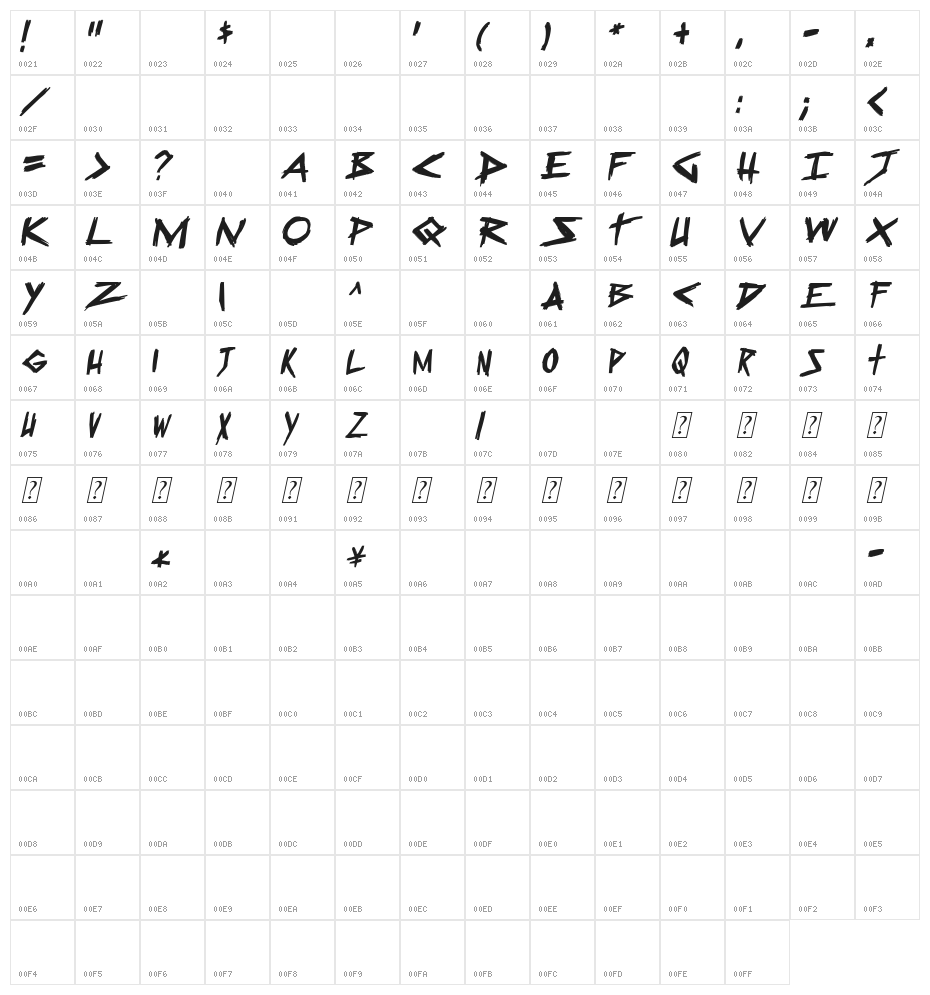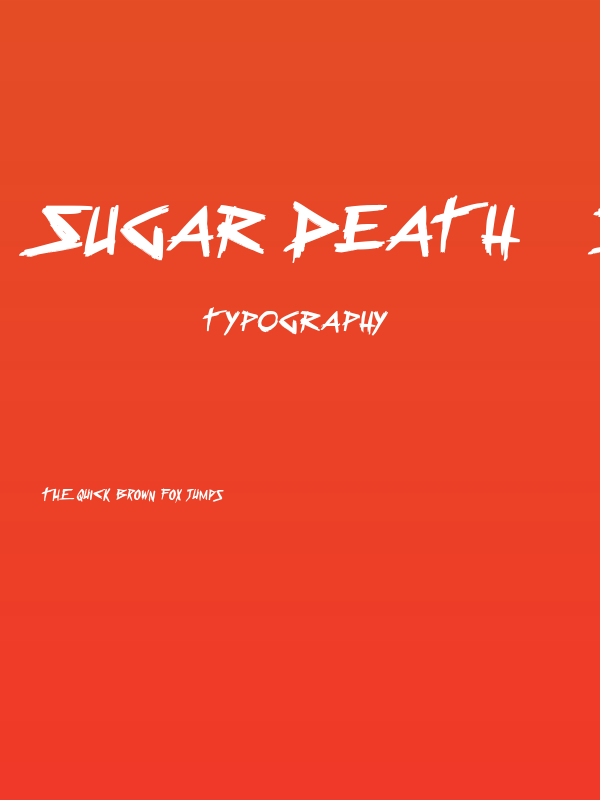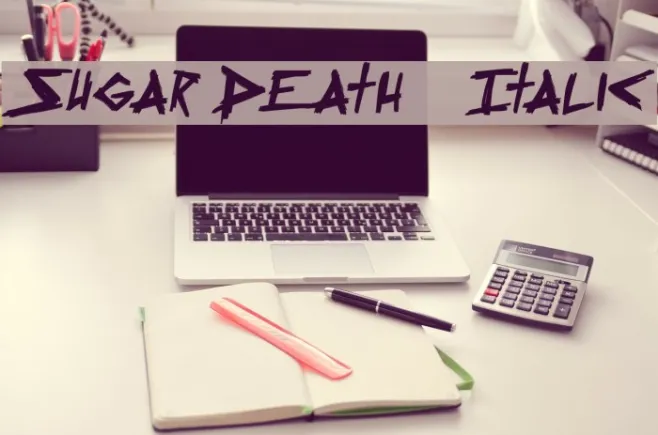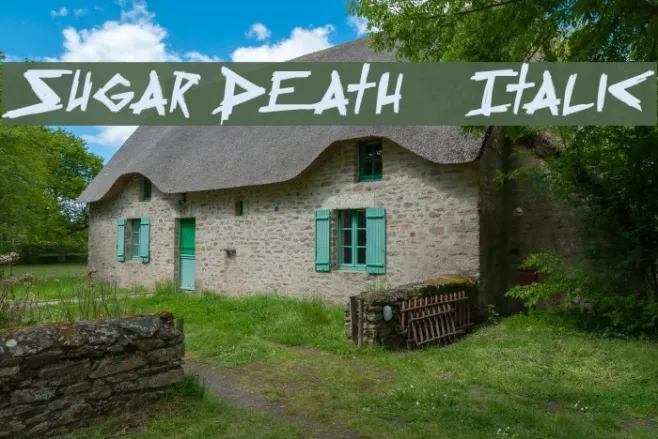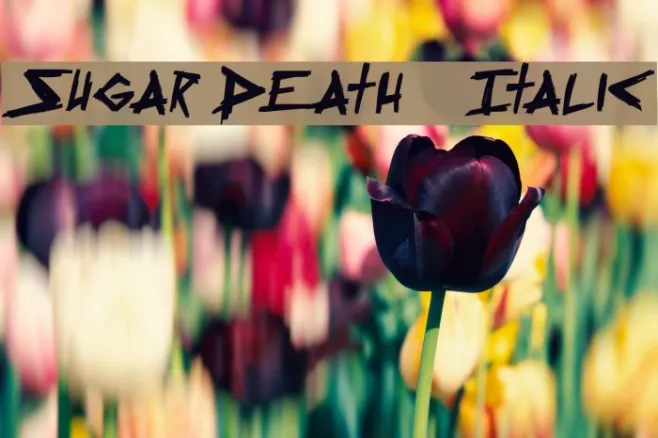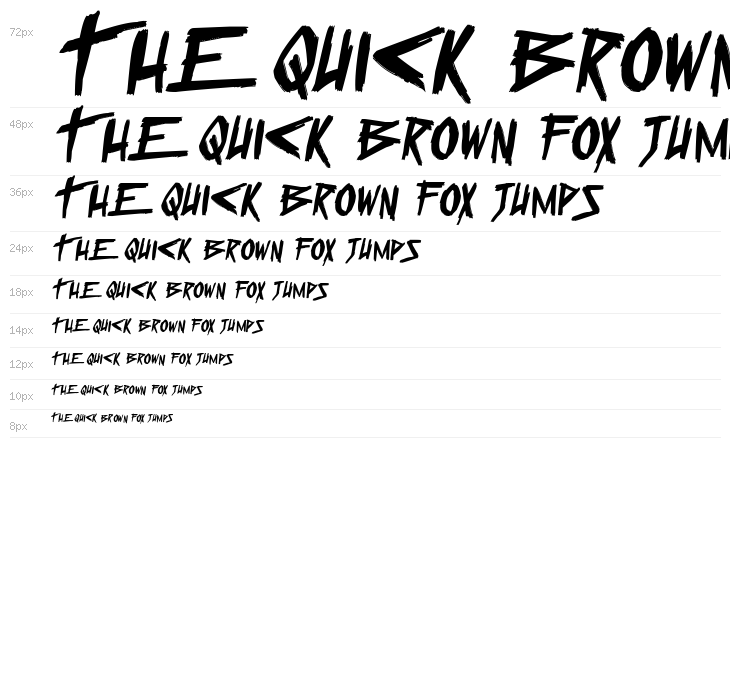
Sugar Death 2 Italic Font
Sugar Death 2 Italic Description
This font features a bold and aggressive style with sharp, angular lines and a dynamic, energetic appearance. The characters are heavily stylized, giving off a rebellious and edgy vibe. The uppercase and lowercase letters maintain a consistent slant, enhancing the italicized effect. The strokes are thick and uneven, contributing to a sense of movement and intensity. This font is highly decorative, making it stand out in any design. The special characters follow the same bold and jagged aesthetic, ensuring uniformity across all elements.
| Overall Style | Modern, Edgy |
| Proposed Projects | Ideal for music album covers, skateboarding brands, graffiti art, and edgy poster designs. |